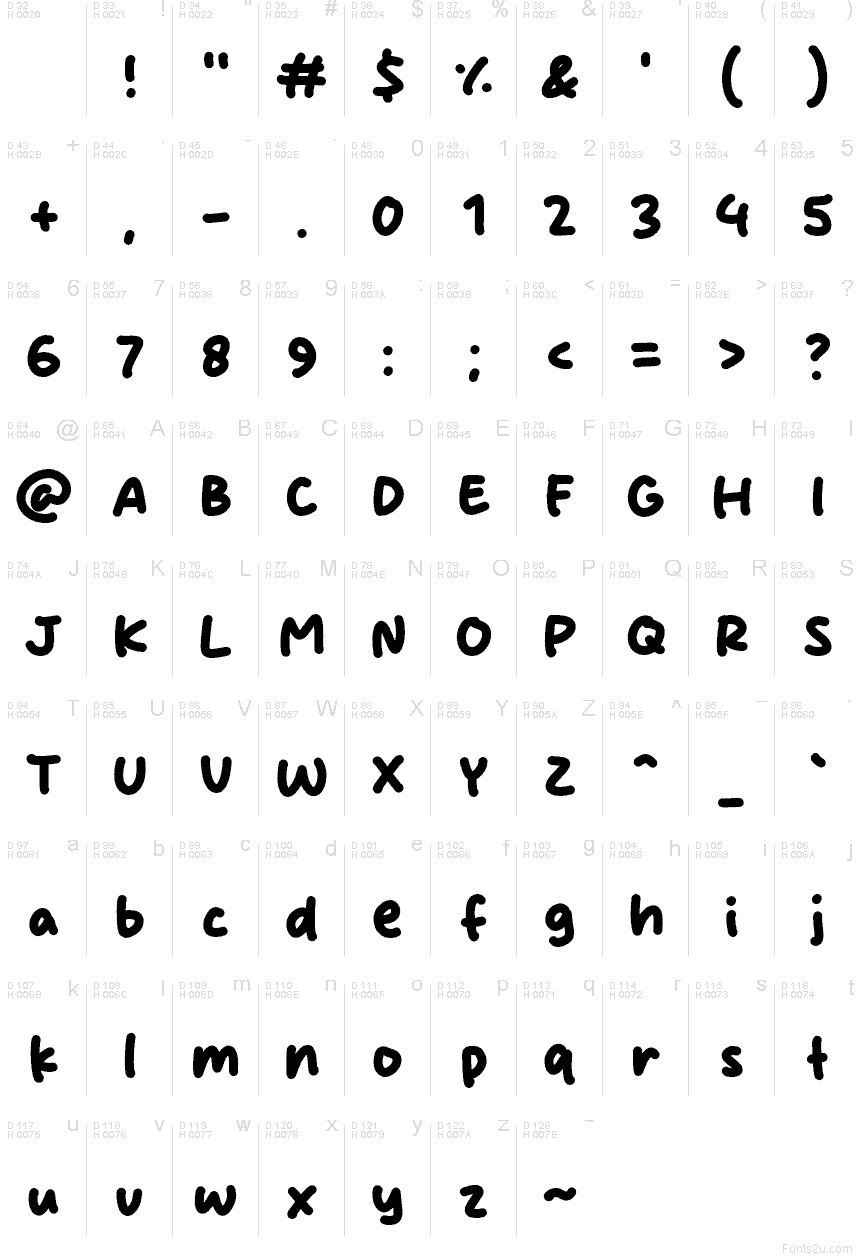
Nature Sunset
Nature Sunset font by MJType is a free handwritten font that feels like a sun-warmed note scrawled on a sketchbook page. Rounded strokes, easy curves, and slightly uneven shapes give it a friendly, outdoorsy character—breezy enough for casual projects but bold enough to hold a headline. The letters feel soft and inky, as if written with a thick marker, creating a cozy, approachable rhythm across a line.
Using Nature Sunset, you can bring this relaxed energy to nature-inspired logos, kids’ book covers, quote graphics, event posters, packaging, and social media visuals. This free font shines when set a bit larger, where its chunky curves and smooth flow can really breathe. Pair it with a clean, light sans serif for body text to keep the overall look grounded and easy to read.